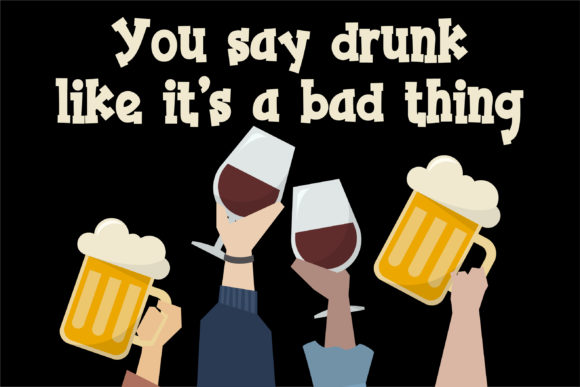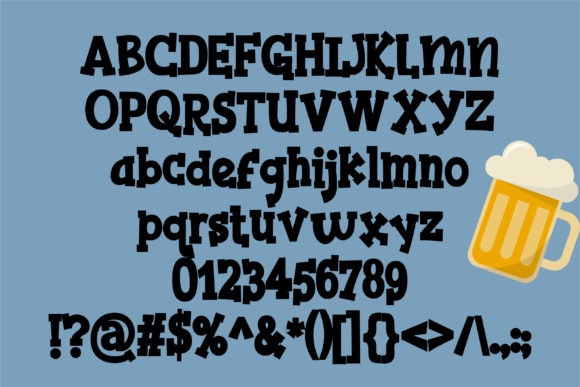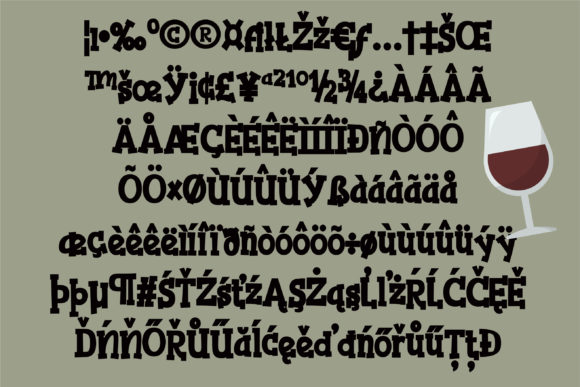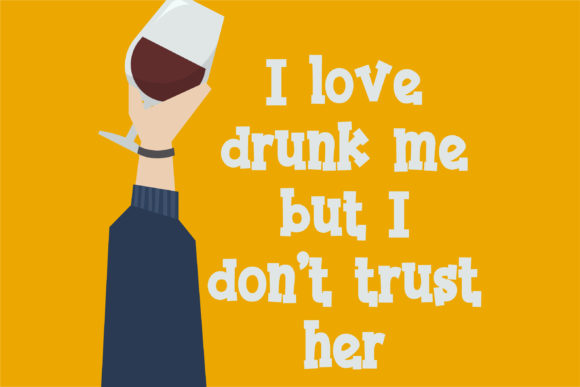
The Ultimate Design Hack: Getting to Know Carbohydrunk Font
Carbohydrunk Font: My Honest Review
So, what makes Carbohydrunk so special? Let’s dive into the good stuff! 😊
- ✨ Unique Whimsy: Carbohydrunk adds a playful touch to any design project, making it perfect for crafty and creative endeavors.
- ✅ Easy to Read: Despite its quirky nature, Carbohydrunk remains surprisingly legible, even at smaller font sizes.
- 💡 Versatile: This font is suitable for a wide range of projects, from invitations and crafts to digital graphics and more.
Of course, no font is perfect, and Carbohydrunk has a few minor quirks:
- 🤔 Limited Formality: Due to its playful nature, Carbohydrunk might not be the best choice for formal or professional projects.
- ⚠️ Glyph Overload: With so many fun glyphs and alternates, it can be easy to get carried away – use them sparingly to avoid visual overload.
The Story Behind Carbohydrunk
Legend has it that Carbohydrunk was born from the creative mind of a designer who wanted to create a font that embodied the playful spirit of crafting and DIY culture. Inspired by vintage signs, quirky illustrations, and the joy of making things, Carbohydrunk was carefully crafted to bring a smile to users’ faces.
Q: What type of projects is Carbohydrunk best suited for?
A: Carbohydrunk shines in creative, whimsical projects like crafts, DIY tutorials, invitations, and digital graphics.